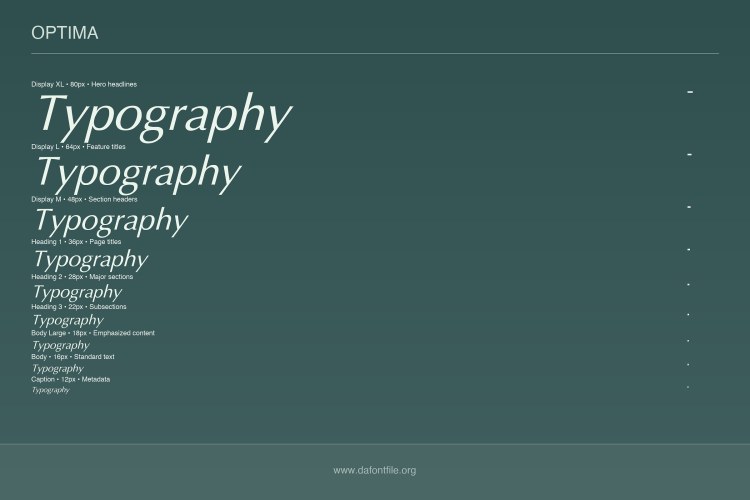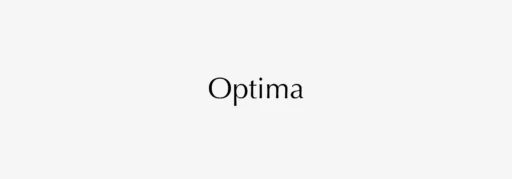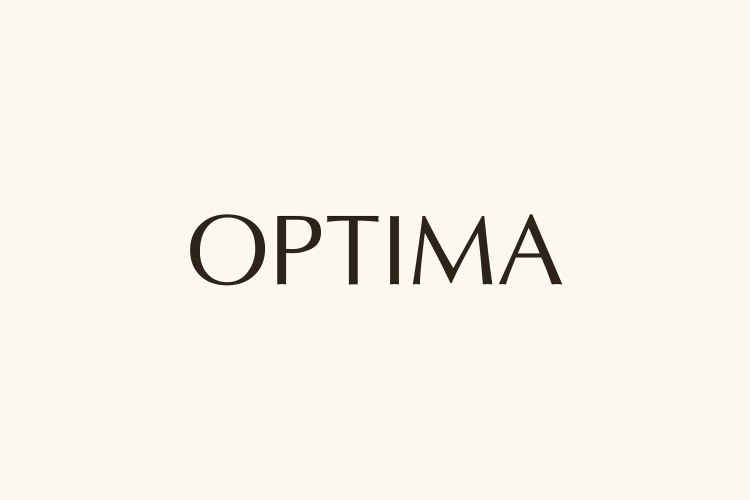
Optima Font Family
Optima is a humanist sans serif typeface that combines classical beauty with modern simplicity. Its elegant curves and clear letterforms make it stand out in branding, editorial layouts, packaging, and corporate design. The font blends the strength of serif styles with the clarity of sans serif structure, giving it a timeless and versatile appeal. Designers choose Optima for projects that need sophistication, balance, and readability.
Where Optima Font Family works best
Optima Font Family gives long-form text a classic, trustworthy rhythm — ideal for magazine spreads, annual reports and book interiors.
Pair Optima Font Family with generous letter-spacing for wordmarks in fashion, hospitality, wine and jewellery branding.
Use Optima Font Family for slide titles in Keynote, PowerPoint or Google Slides to add authority without looking dated.
What is Optima Font Family good for?
Optima Font Family is a Serif Fonts typeface tagged Classic, Elegant, Humanist, Modern. It works well for headlines, logos, posters, social media graphics and branding projects that need a distinctive serif fonts look.